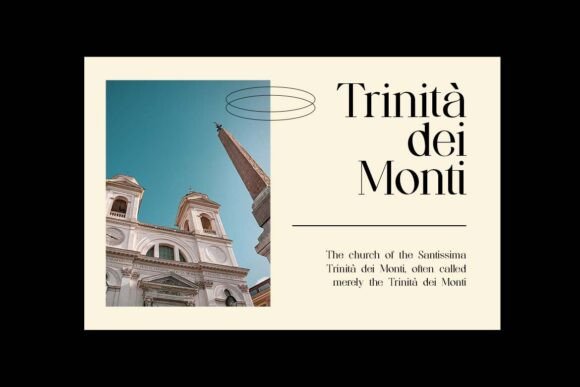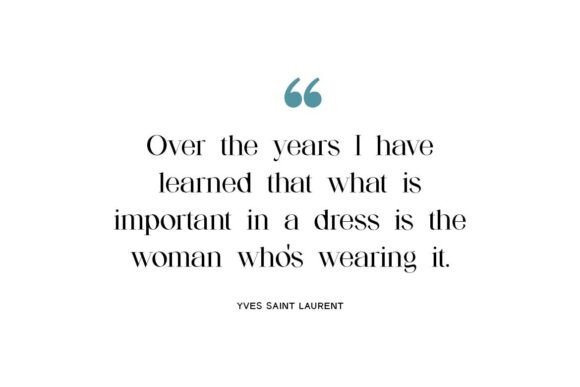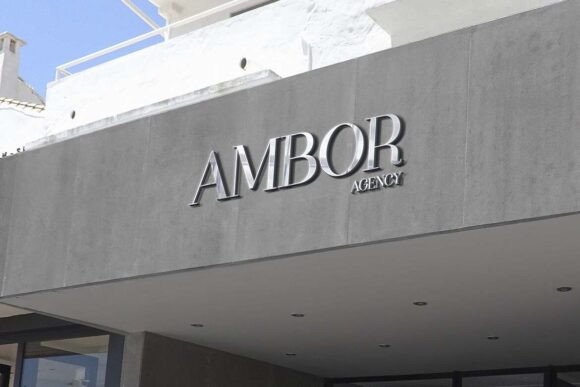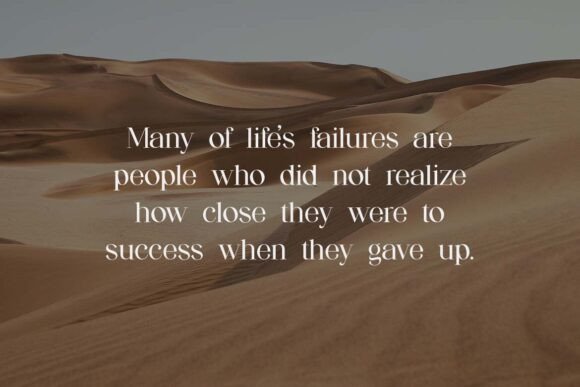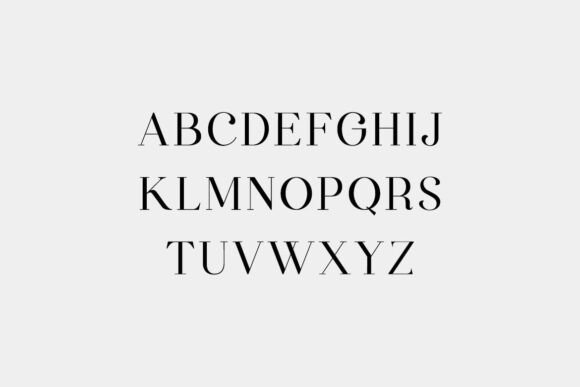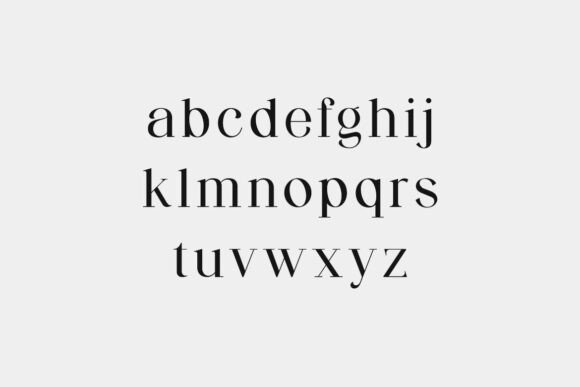
Introduction to Mindleast Font
As designers, we’ve all been there – staring at a blank canvas, waiting for that spark of inspiration to strike. It’s the moment when everything comes together, and our creative vision starts to take shape. For some, it’s the perfect typography that sets the tone for the entire project. And for those in the know, the Mindleast Font is the ultimate design resource to bring that vision to life.
With its modern serif design, Mindleast Font is a high-quality font that exudes elegance and sophistication. Whether you’re working on a fashion brand, a magazine cover, or a wedding invitation, this font is sure to elevate your design to the next level. And the best part? It’s a free download, making it an accessible design resource for creatives of all levels.
So, what makes Mindleast Font so valuable to designers? For starters, its transparent background makes it easy to work with, and its versatility allows it to adapt to a wide range of creative projects. From website headers to branding materials, this font is a game-changer for anyone looking to add a touch of sophistication to their design.
Key Features of Mindleast Font
- High-quality typography with a unique, modern design
- Transparent background, making it ideal for creative projects and design resources
- Includes 12 styles with varying weights and font sizes, perfect for a wide range of design applications
- Resolution-independent, suitable for use at any size without loss of quality
- Designed to be a versatile design resource, compatible with most operating systems and software
Honest Review: Mindleast Font
I recently stumbled upon the Mindleast Font, and I have to say, it’s a great addition to any design resource collection. This free download is perfect for creative projects that require a unique touch.
- ✨ High-quality design that stands out from the crowd
- ✨ Transparent background, making it easy to use with any color scheme
- ✨ Versatile font that can be used for a variety of creative projects
- ⚠️ Limited font styles available (only a few options to choose from)
Overall, I’m impressed with the Mindleast Font. It’s a great resource for designers looking to add some creativity to their projects. While it may have some limitations, it’s a high-quality font that’s definitely worth checking out.
To get the most out of the Mindleast Font, use it in conjunction with other design elements to create a cohesive and visually appealing design. Experiment with different font sizes, colors, and styles to find the perfect combination for your project.
The Mindleast Font is perfect for a variety of creative projects, including logos, branding, and marketing materials. Its high-quality design and transparent background make it easy to use and customize for any project.
Alternatives to Mindleast Font
Open Sans is a high-quality sans-serif font that is perfect for creative projects that require a clean and modern look. It is available for free download and features a transparent background, making it ideal for use on websites and digital interfaces. Open Sans is a great alternative to Mindleast Font for designers who want a versatile and highly legible font.
Comparison to Mindleast Font: While Open Sans is more versatile and widely used, it lacks the unique character of Mindleast Font. However, its high-quality design and transparent background make it a great choice for designers who want a professional-looking font.
Montserrat is a geometric sans-serif font that is perfect for creative projects that require a modern and urban look. It is available for free download and features a transparent background, making it ideal for use on websites and digital interfaces. Montserrat is a great alternative to Mindleast Font for designers who want a font that is both stylish and highly legible.